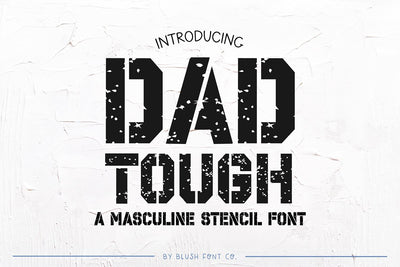
Dad Tough Father's Day Distressed Sporty Font
"Dad Tough" Father's Day Font
This is a masculine distressed stencil font perfect for Father's Day crafts and dads.